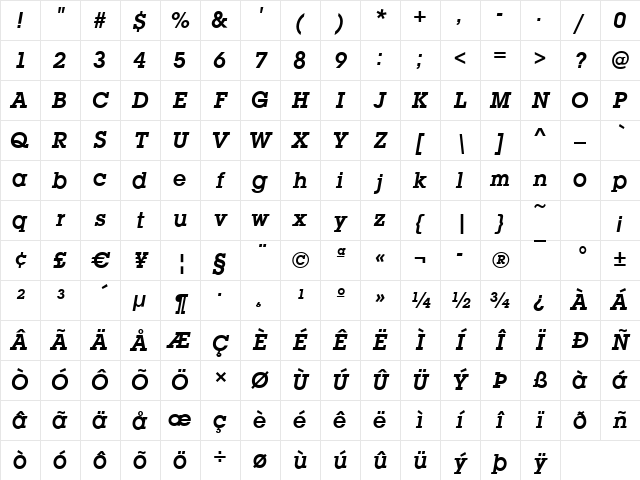
Complete SquareSerif DemiItalic glyph index. Displaying only characters natively supported by SquareSerif DemiItalic font.
SquareSerif carries the refined structure of traditional serif typography, with bracketed terminals and considered proportions that communicate credibility and craft. The slanted form adds forward momentum and visual energy.